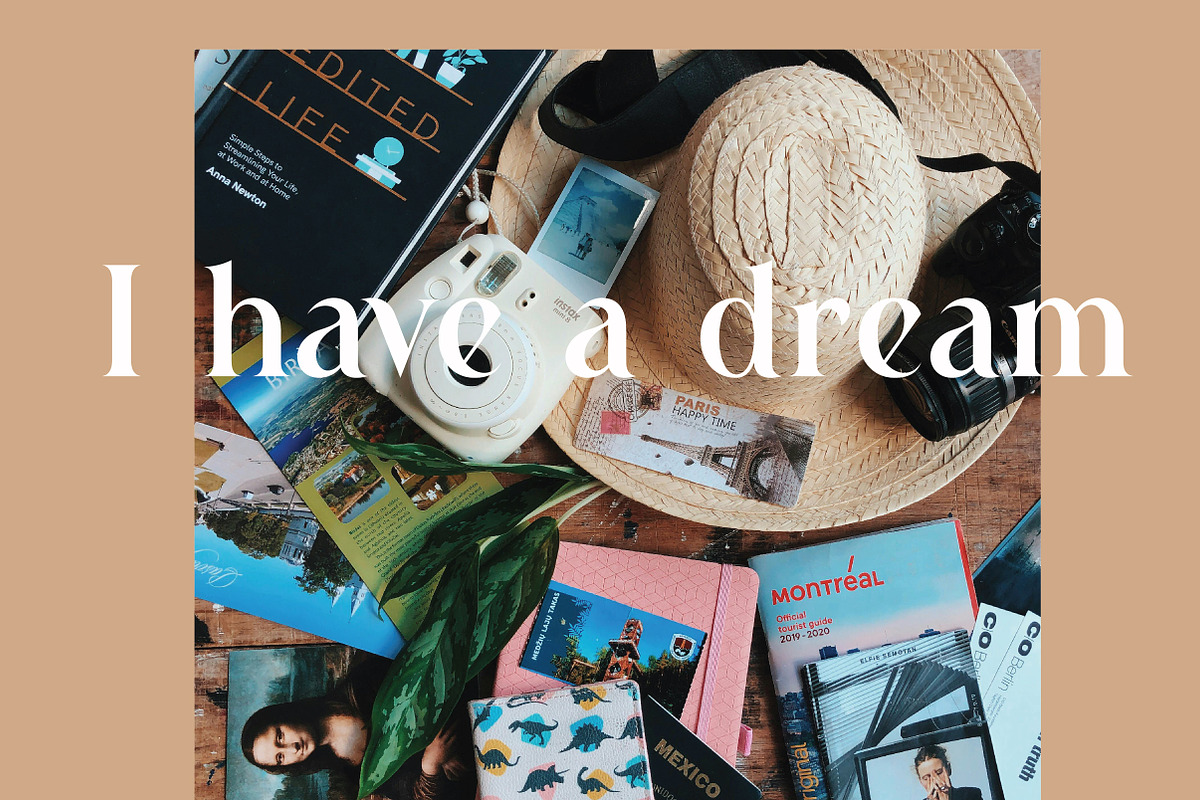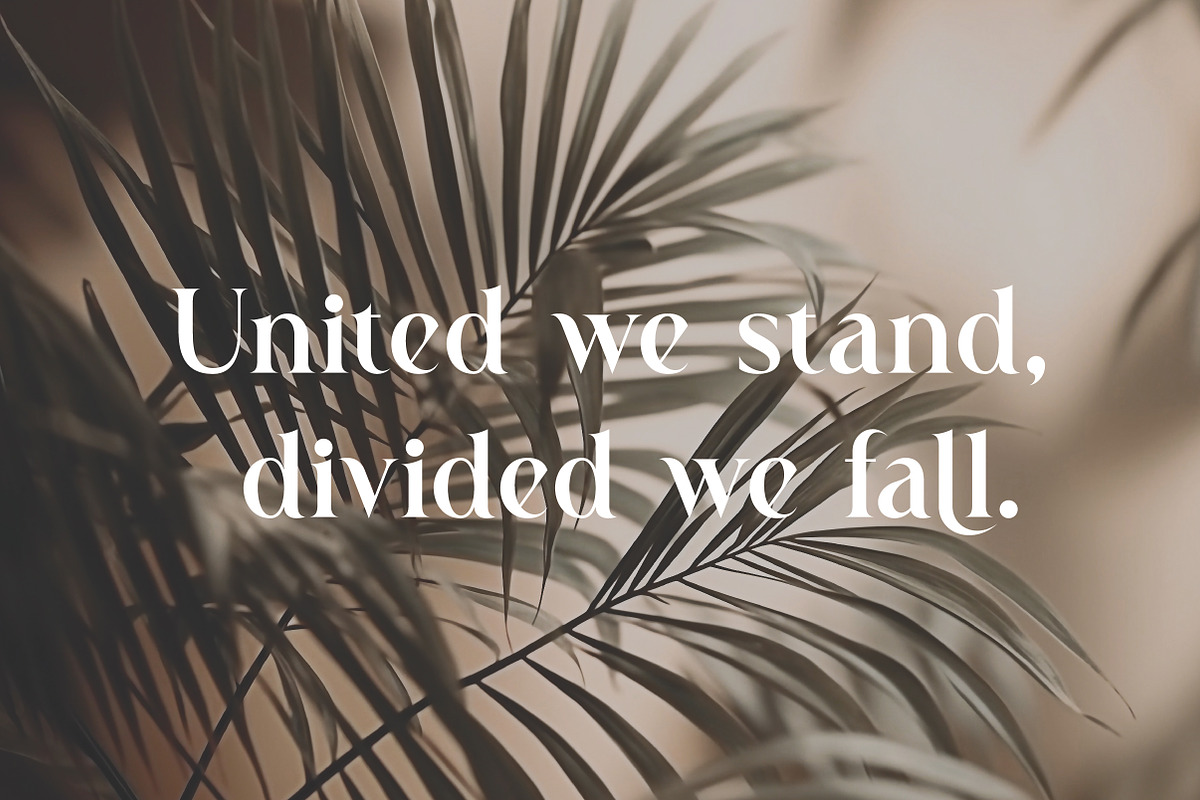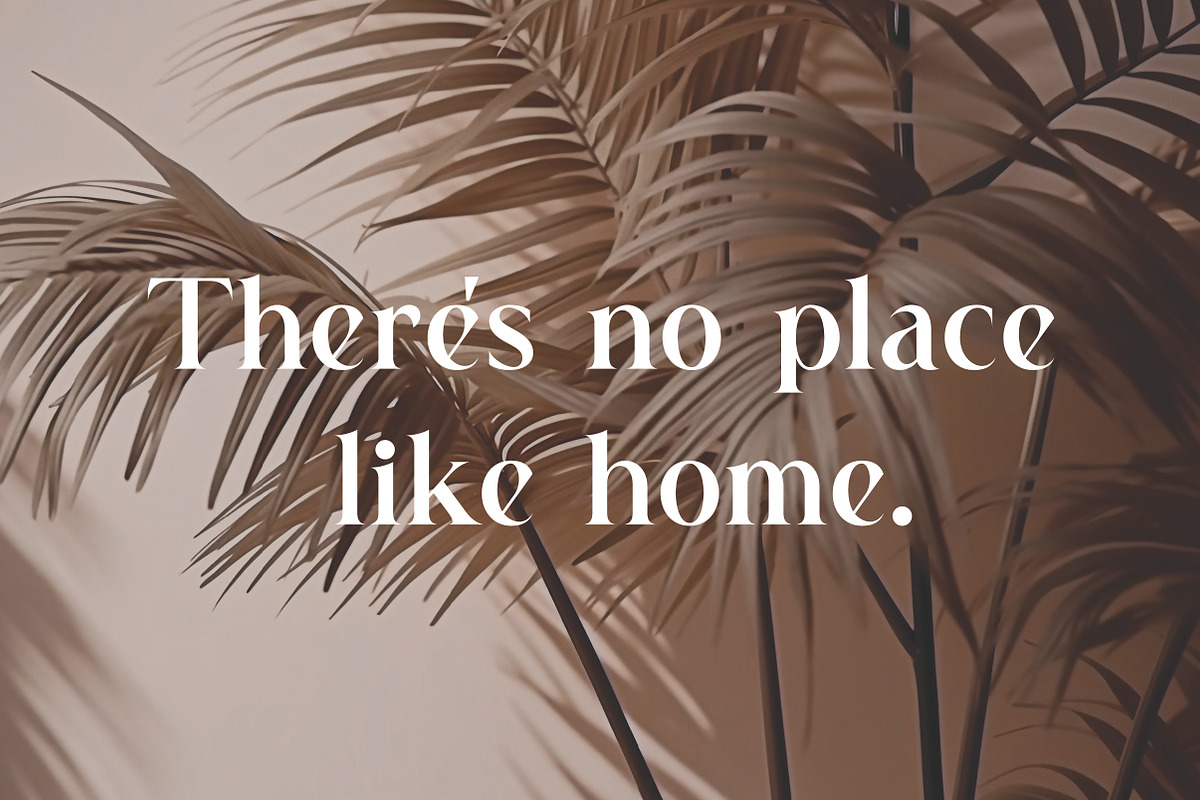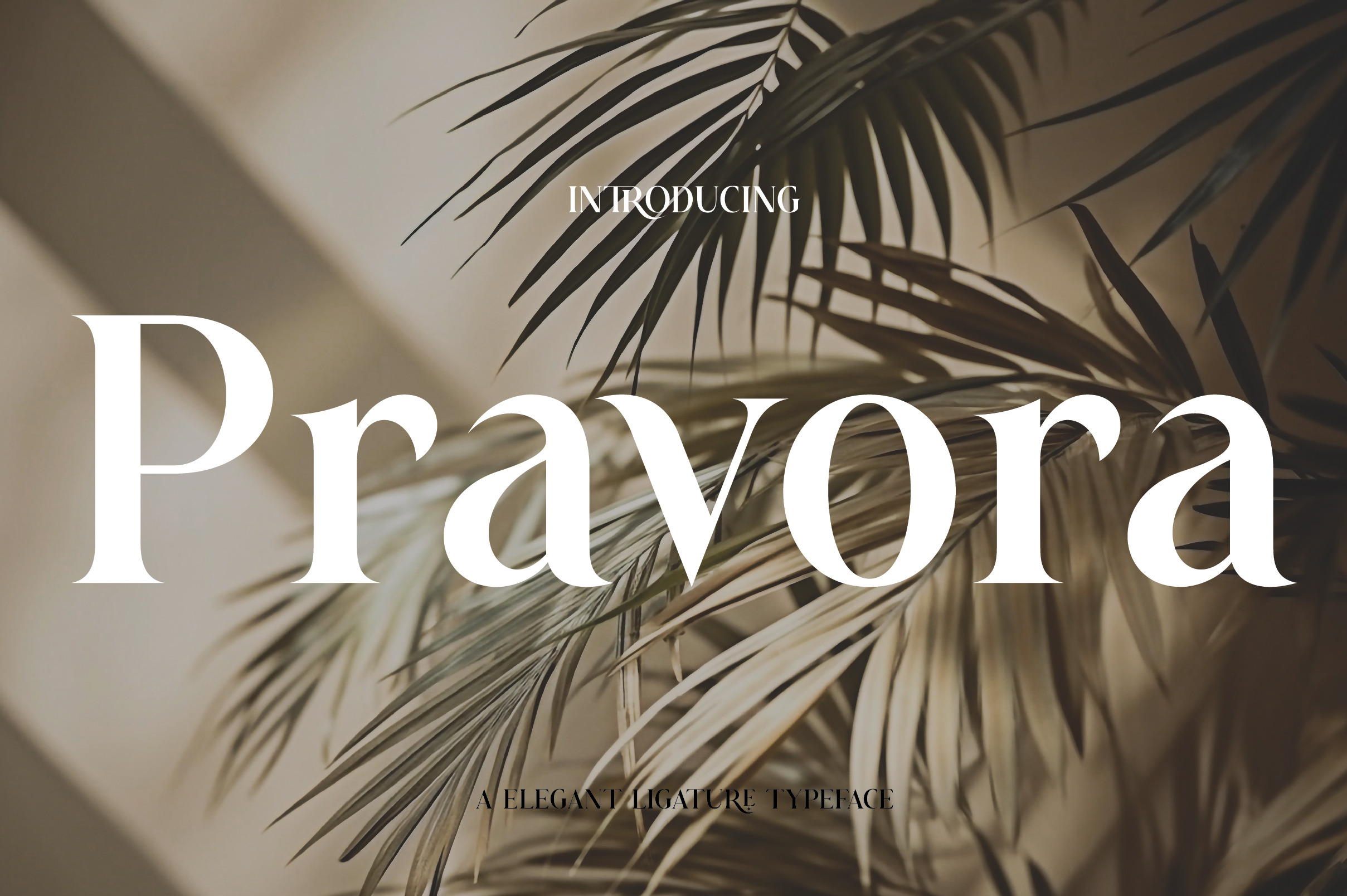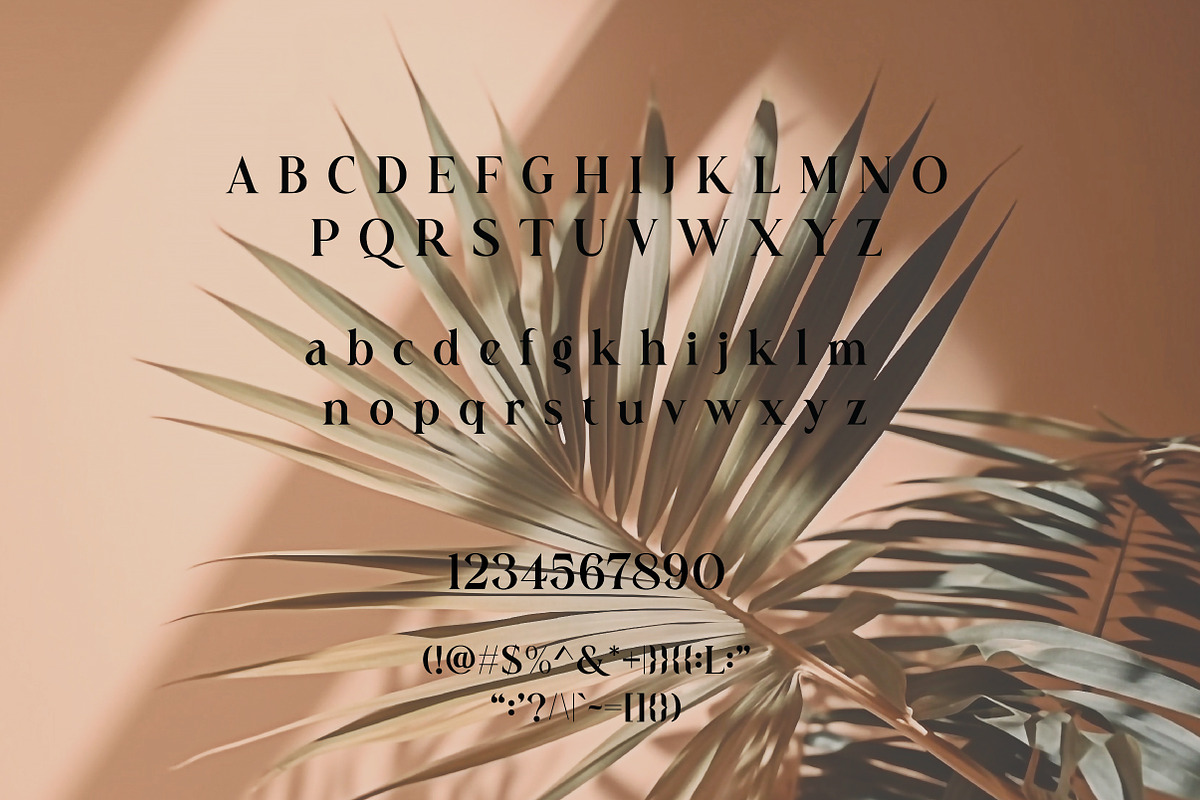
Pravora | Modern Serif Typeface
Pravora is a sleek and confident serif typeface designed in a balanced Medium style. With refined curves, strong serifs, and a clean structure, Pravora blends traditional elegance with a modern edge making it ideal for branding, editorial layouts, packaging, invitations, and more.
Its medium weight offers versatility, providing enough presence for headlines while maintaining excellent readability for body text. Pravora is perfect for projects that require a touch of class, clarity, and timeless design.
Bring sophistication to your work with the poised and professional style of Pravora.